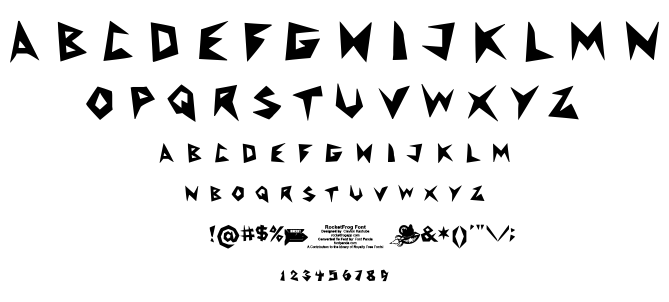
RocketFrog Font was created for the mobile game RocketFrog. Go to rocketfrogapp.com to check it out.
Designed by Clayton Kashuba
Converted to font by FontPanda.com